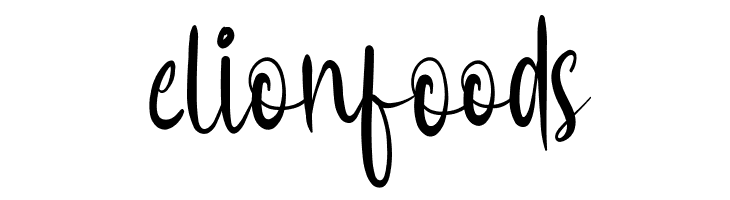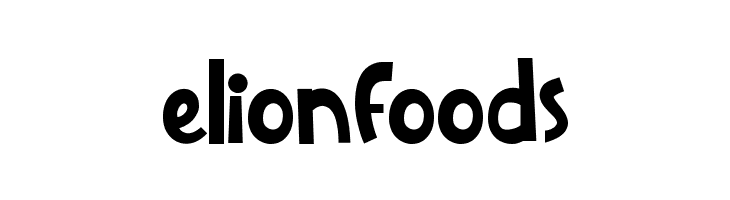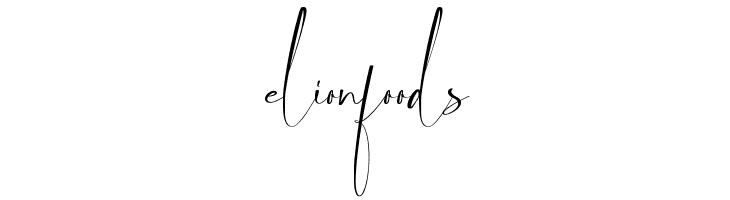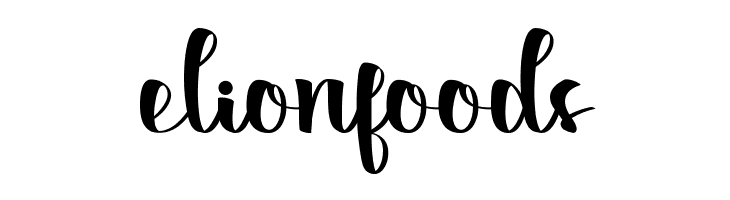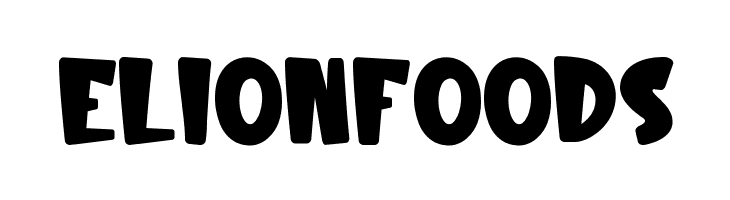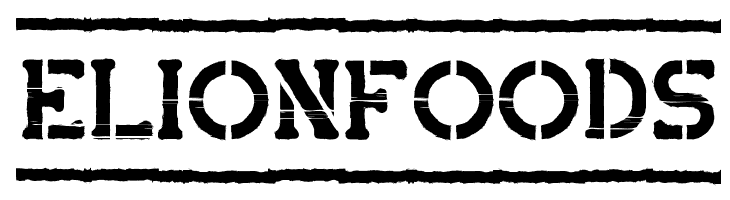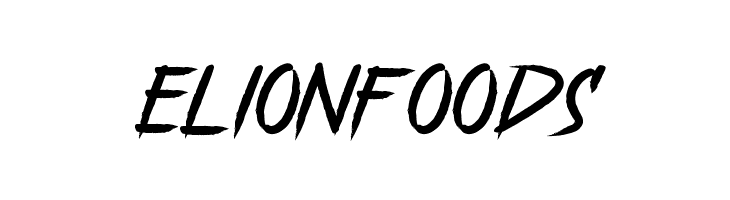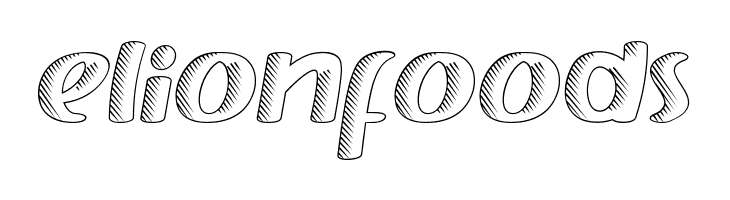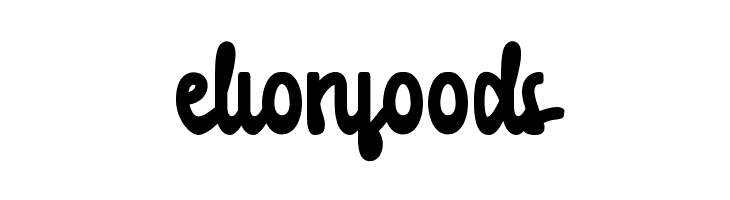
A playful and artistic handwritten font with dynamic letterforms and medium contrast.
A playful, hand-drawn font with bold, rounded characters and a whimsical style.
An elegant, flowing script font with intricate strokes and high contrast, perfect for refined projects.
A bold, expressive script font with flowing, cursive letterforms and artistic flair.
A bold, playful font with rounded, whimsical characters.
A bold, distressed font with a vintage, stamped appearance.
A dynamic brush-style font with sharp, angular strokes and a hand-painted look.
A bold, slanted font with diagonal line patterns, exuding energy and motion.
A bold, playful font with rounded, condensed letterforms and a flowing script style.